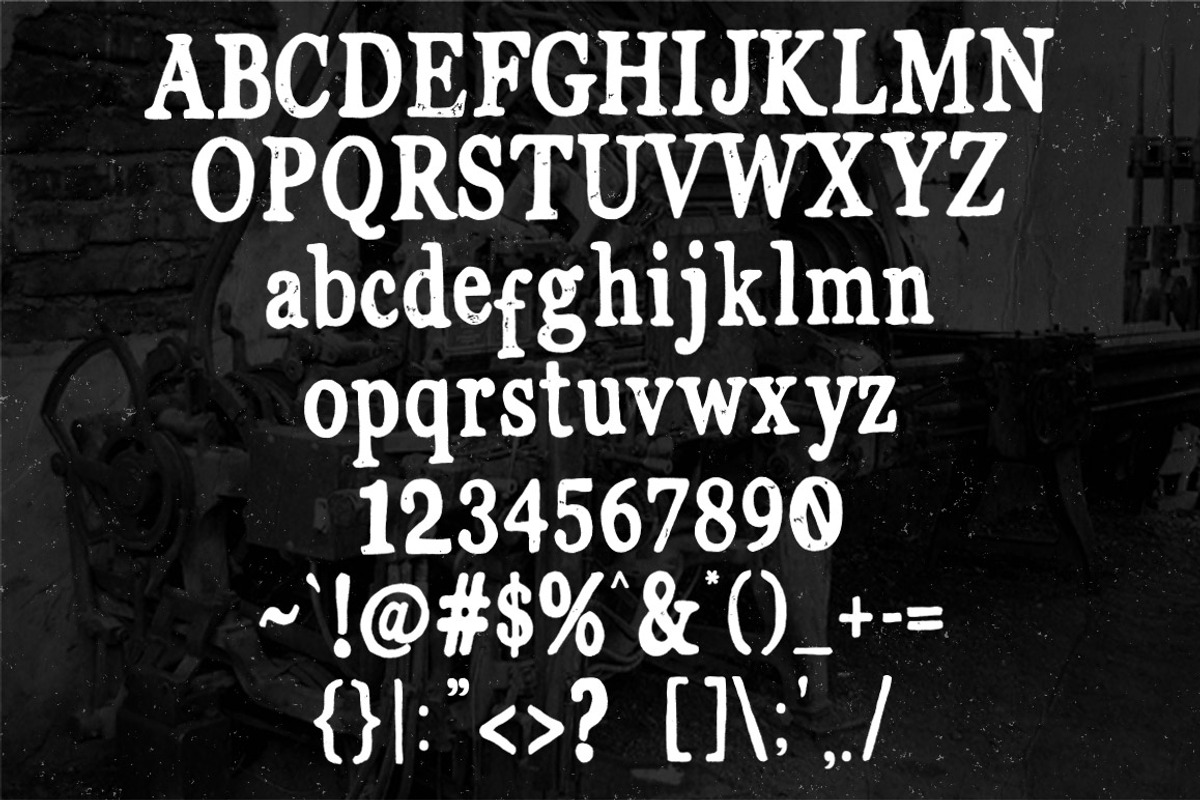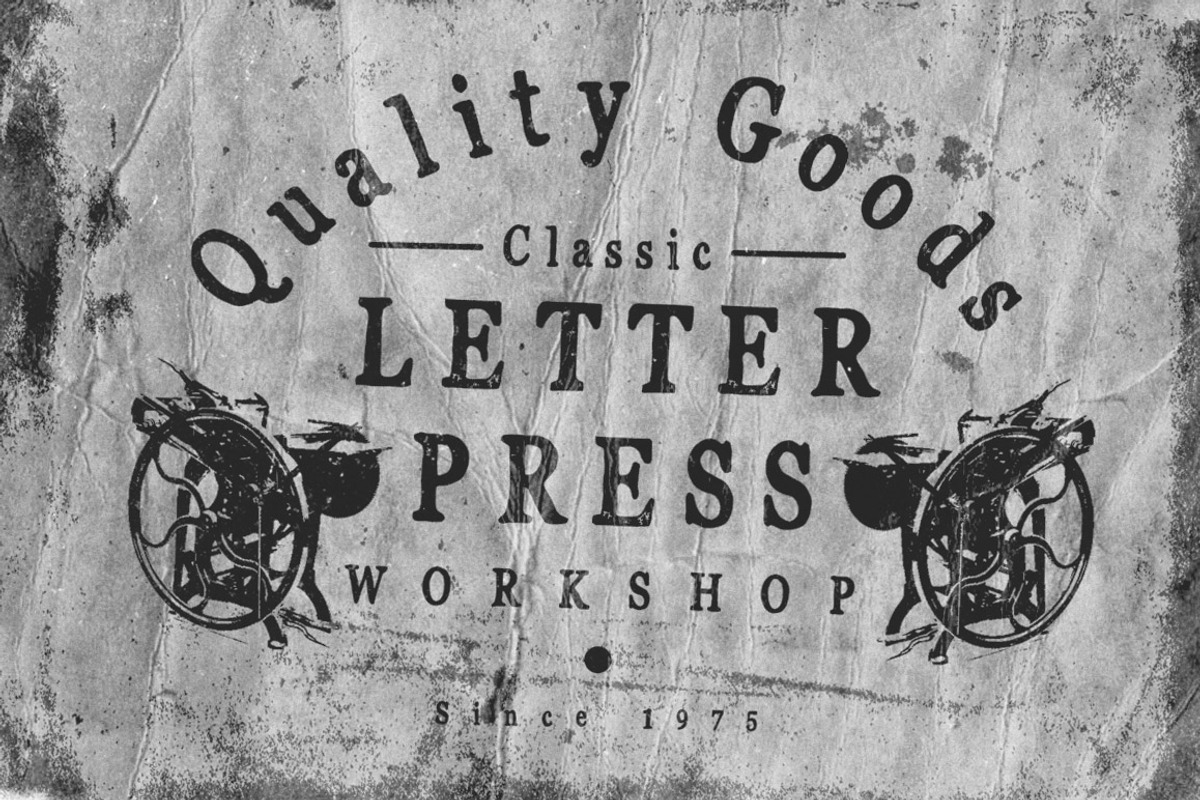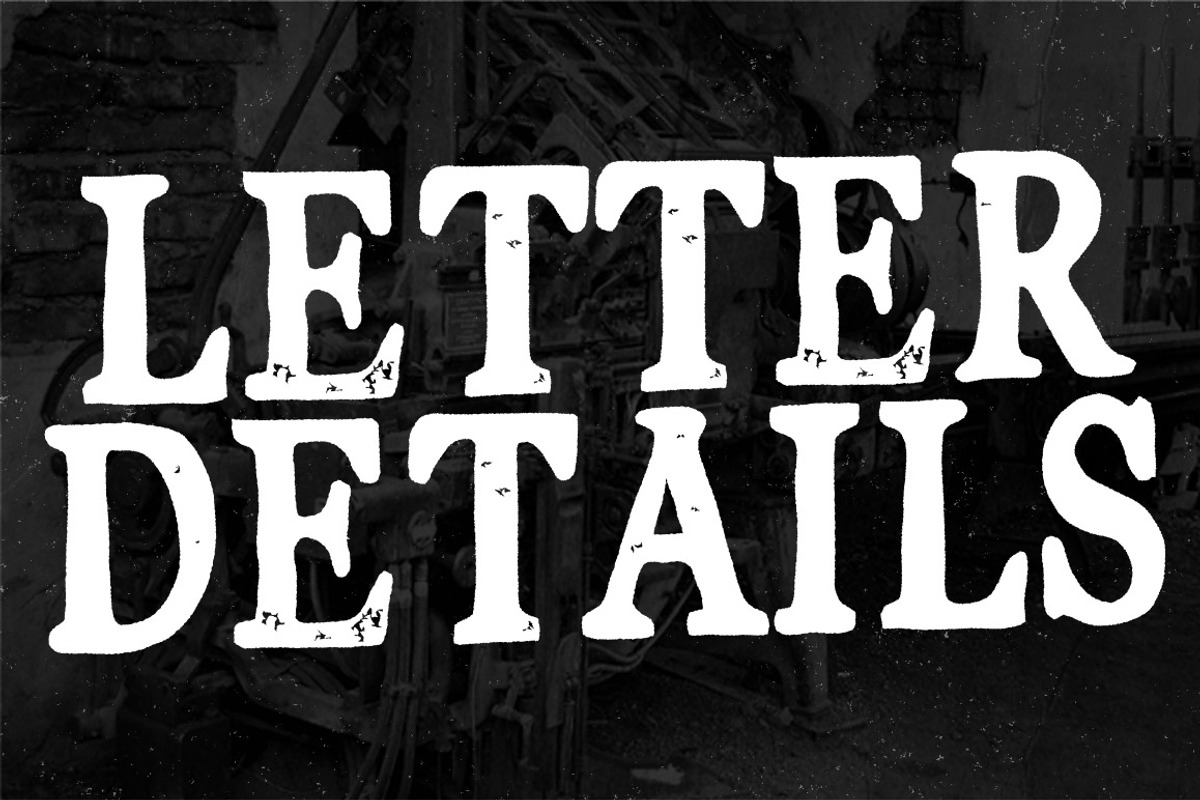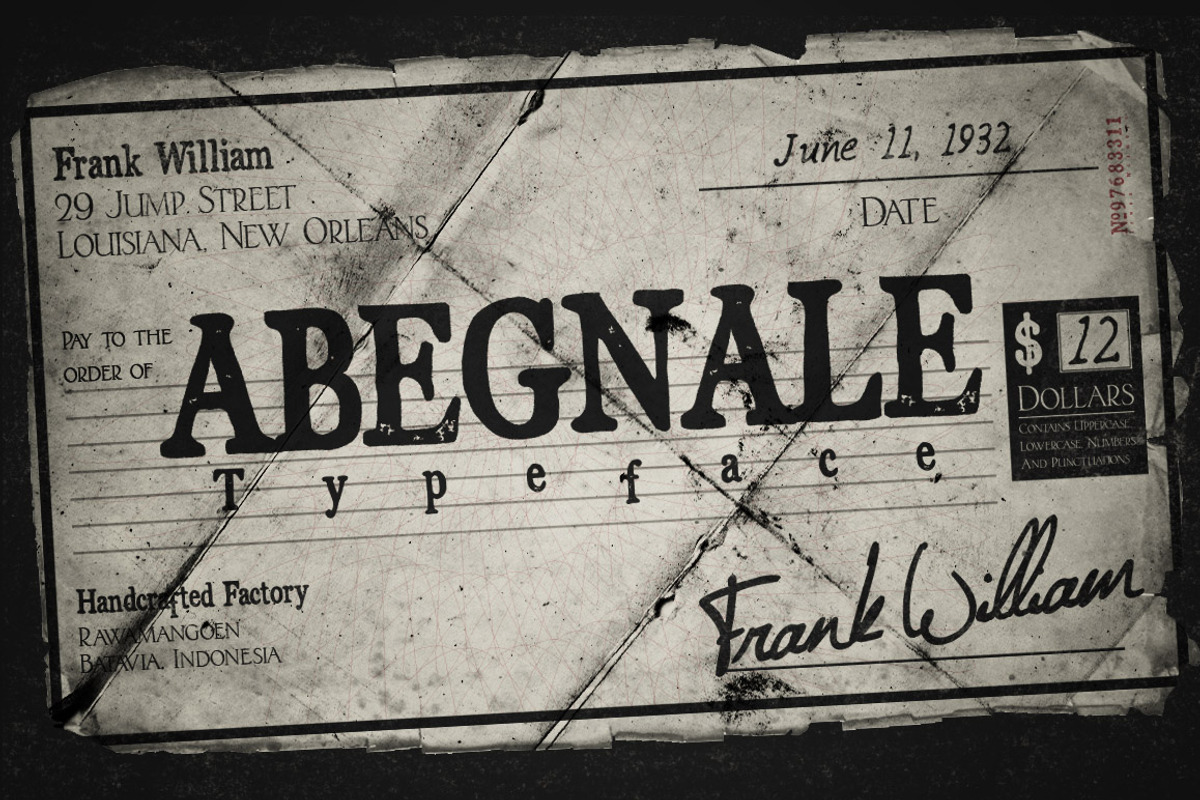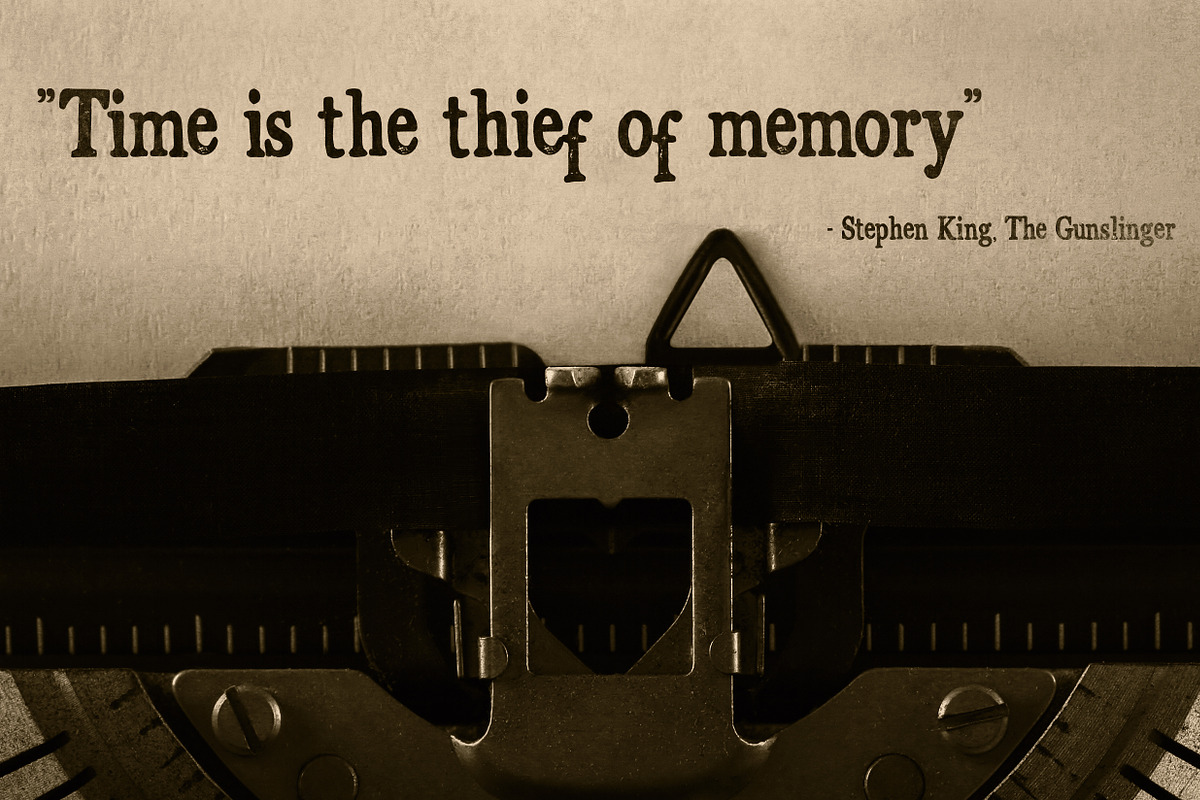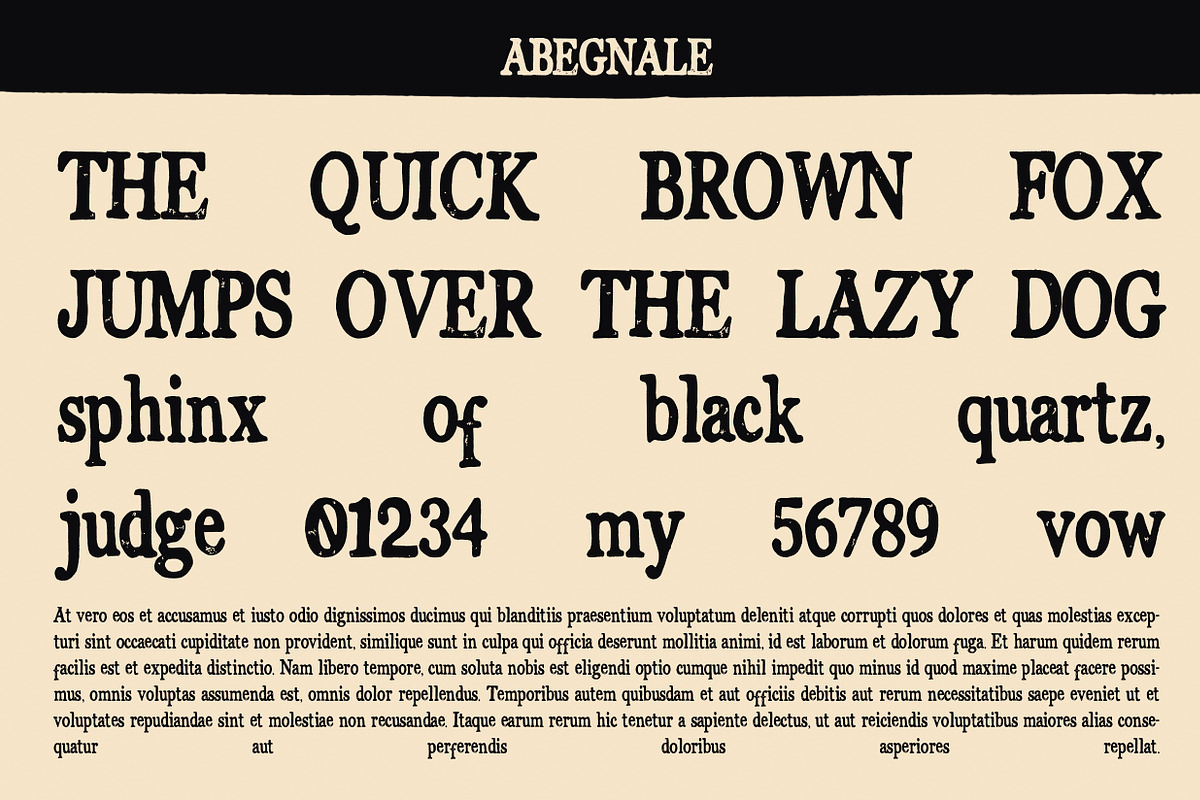
Abegnale Typeface
Abegnale Typeface by Ian Irwanwismoyo is a font selected for branding, posters, packaging, typography.
- Abegnale Typeface Inspired by the old era of handmade letterpress machine that gives you an authentic manual made feel and the press effect
Abegnale Typeface by Ian Irwanwismoyo fits naturally into Branding, posters, packaging, typography.